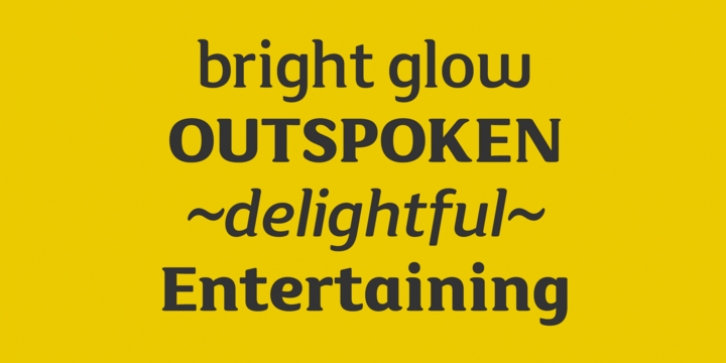
FS Maja was designed by Jason Smith and published by Fontsmith. FS Maja contains 4 styles and family package options.
FS Maja is a bright and cheeky typeface by Smith,Jason . Bubbly, punchy, and entertaining. Distinctively warm with soft rounded shapes, FS Maja is a display and text font that's young, fresh and beautifully random!